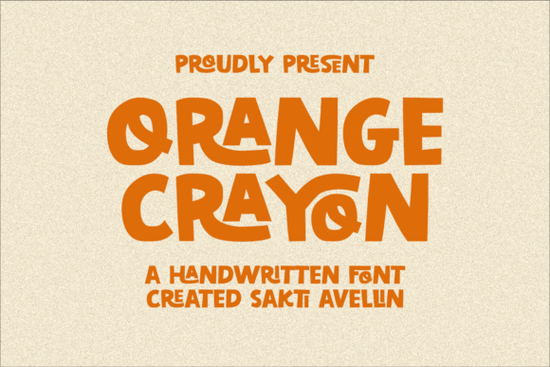
If you're looking for a playful, hand-drawn typeface that works across kids' products, packaging, and casual branding, the Orange Crayon Font is worth a closer look. It's bold, organic, and carries a cheerful energy that fits naturally into designs aimed at children, families, and fun lifestyle brands. Whether you're a print-on-demand seller or a small business owner working on product packaging, this font brings a warm, approachable feel to your projects without much effort.
What Makes This Font Stand Out?
Most hand-drawn typefaces lean either too childish or too messy. Orange Crayon sits in a sweet spot it's energetic but still readable, fun but not sloppy. The characters have a thick, rounded quality that mimics the look of real crayon strokes, giving designs an authentic, handmade feel.
This kind of typeface works especially well when you want your design to feel friendly and approachable. Think about the difference between a stiff corporate font and something that looks like a kid grabbed a crayon and wrote with total confidence. That's the tone Orange Crayon sets and it works surprisingly well in professional design contexts too.
Where Can You Use This Font?
The versatility is one of its strongest points. Here's where designers and sellers tend to get the most value out of it:
- Kids' apparel and baby products onesies, toddler tees, bibs, nursery wall art
- Snack and beverage packaging juice boxes, milk cartons, cereal boxes, and pizza packaging
- Party supplies and birthday cards invitations, banners, cupcake toppers, favor tags
- Children's books and educational materials storybook covers, flashcards, learning posters
- Custom merchandise mugs, canvas tote bags, keychains, stickers
- Casual clothing lines graphic tees, hoodies, and caps with a pop-art or retro feel
- Teen skincare and lifestyle branding packaging for youthful, upbeat product lines
It also pairs well with cleaner typefaces for contrast. If you're building a brand system, you could use Orange Crayon for headlines and pair it with something like Simple Lover for body text to keep the overall layout balanced and easy to read.
What Design Styles Work Best With It?
Orange Crayon naturally leans into playful, pop-art, and retro aesthetics. It's a strong match for projects that need to feel lighthearted and energetic. If you're designing for a toy brand, a children's learning center, or a family-friendly restaurant, it fits right in.
That said, it's not limited to kids' designs. Teen-focused brands, creative workshops, and even motivational wall art can benefit from its bold personality. The font communicates optimism and warmth two qualities that work across a wider range of projects than you might expect.
Does It Work for Print-on-Demand Sellers?
Absolutely. If you sell on platforms like Redbubble, Merch by Amazon, or Etsy, a font like this can become a core part of your design toolkit. It's especially useful for:
- Niche kids' designs parents actively look for apparel and accessories with fun, colorful typography
- Greeting cards and stationery birthday and party-themed designs stay in steady demand year-round
- Kitchen and food-themed products pizza lovers, snack enthusiasts, and coffee mug designs all benefit from its bold style
- Motivational and inspirational quotes the thick letterforms make text-based designs pop on any surface
Since the font carries strong visual weight, it reads well even at smaller sizes on products like stickers and keychains. You won't need to worry about legibility the way you might with thinner display fonts.
How Does It Compare to Other Display Fonts?
Every typeface brings something different to a project. Orange Crayon is specifically designed to feel hand-crafted and joyful. If you're working on embroidery or stitch-themed projects, the Sweet Stitch font might be a better fit. For branding that needs a strong uppercase presence with a more rugged feel, Rancher Capital delivers a completely different mood.
The point is having a few versatile display fonts in your collection lets you switch styles depending on the project. Orange Crayon handles the cheerful, energetic side of things exceptionally well, and it fills a gap that many font collections miss.